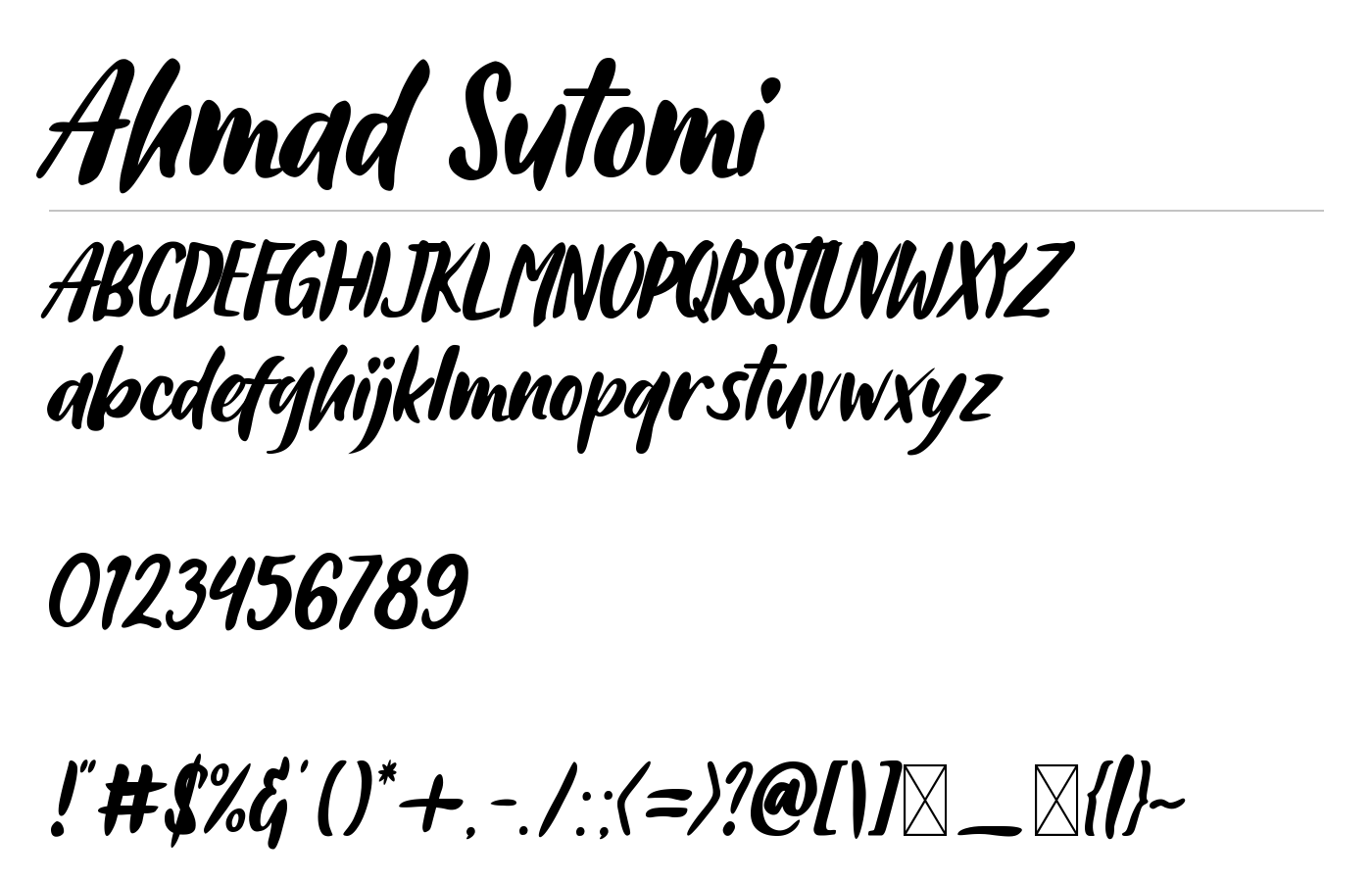
Ahmad Sutomi Font is a lively and modern script typeface with a bold weight and dynamic brushstroke style that gives it a hand-lettered, playful character. Its slightly condensed letterforms with moderate contrast and fluid connections make it perfect for energetic branding, invitations, and headlines where a personal and creative touch is desired. This font’s friendly and informal vibe works well for projects seeking a vibrant yet approachable look.
Ahmad Sutomi Font
About Ahmad Sutomi Font